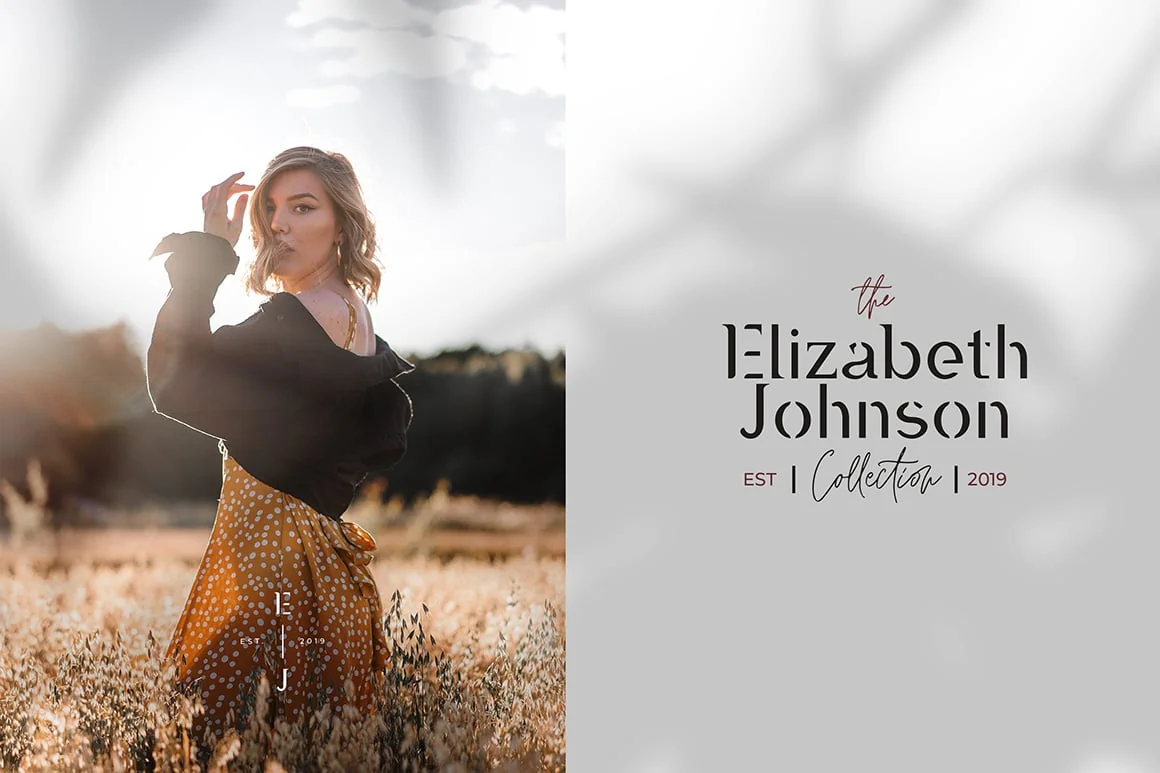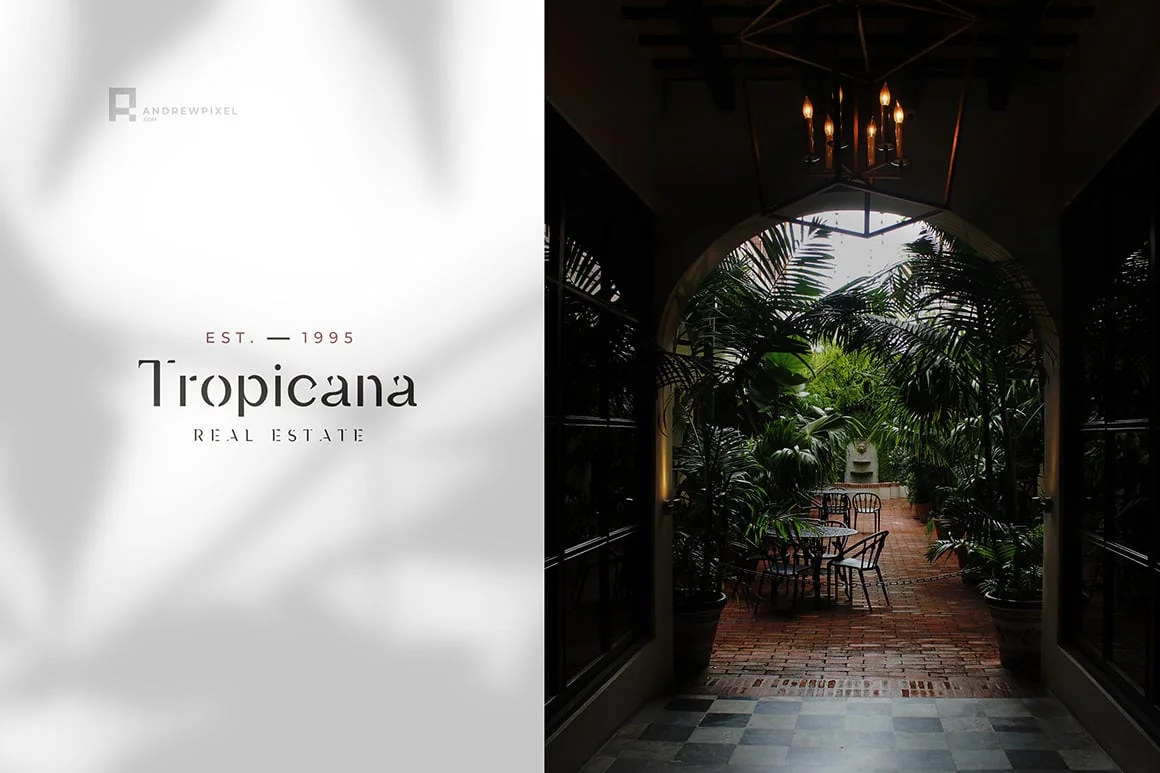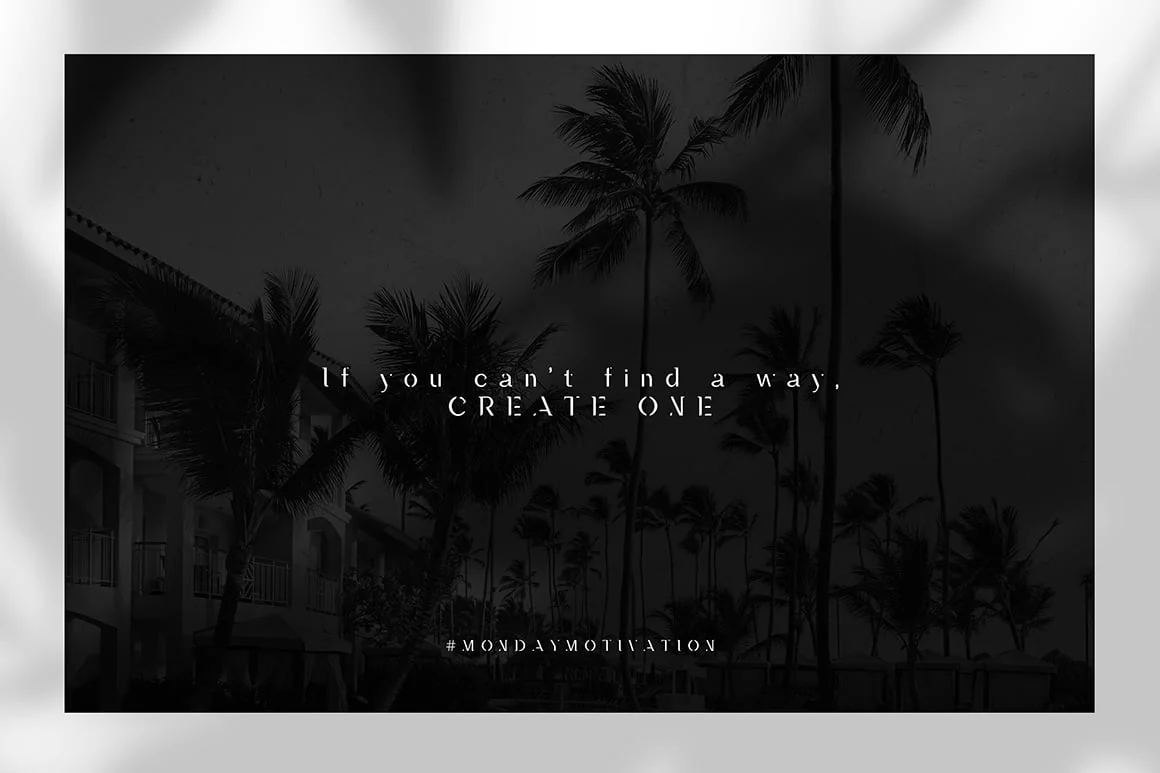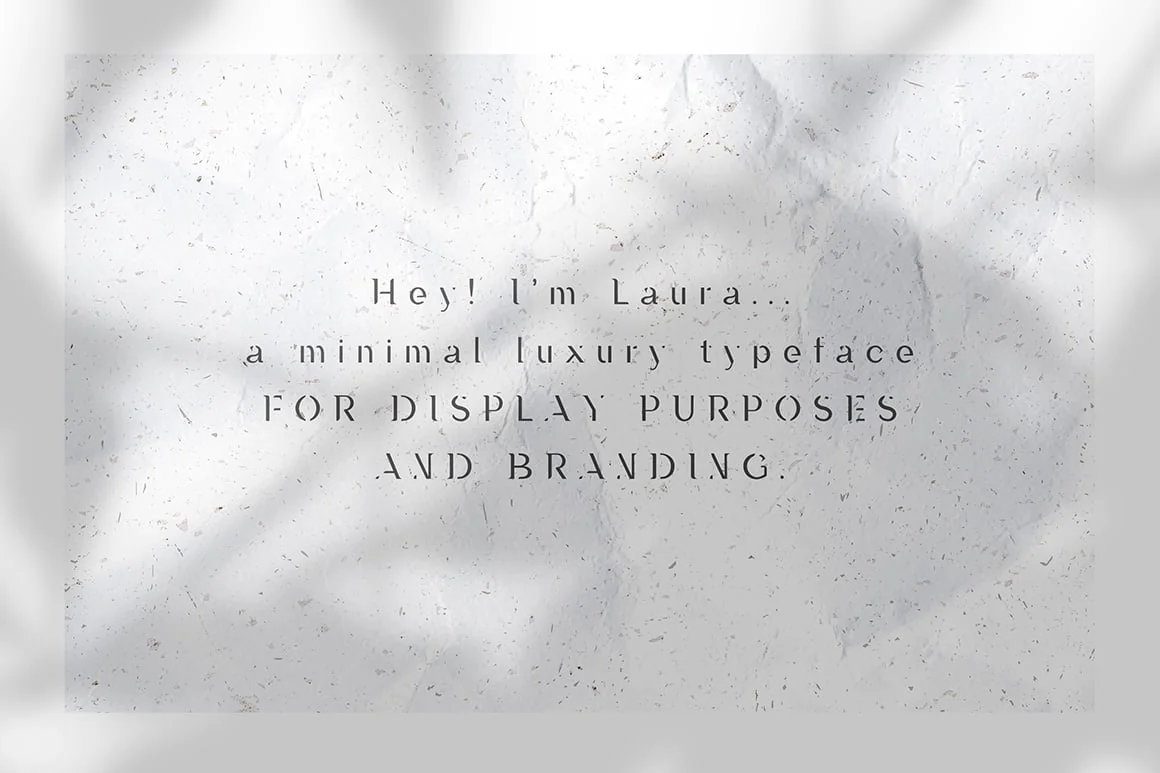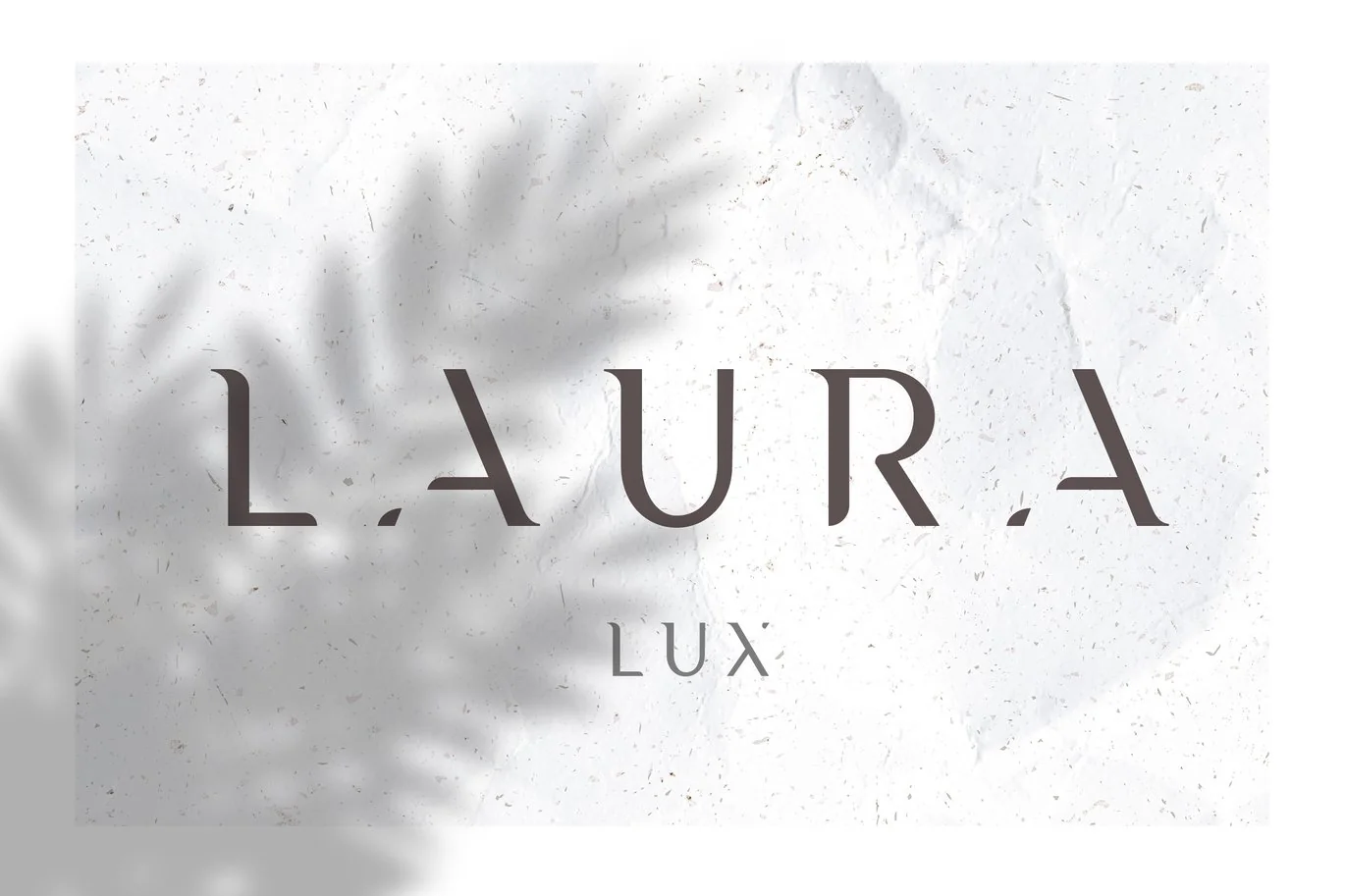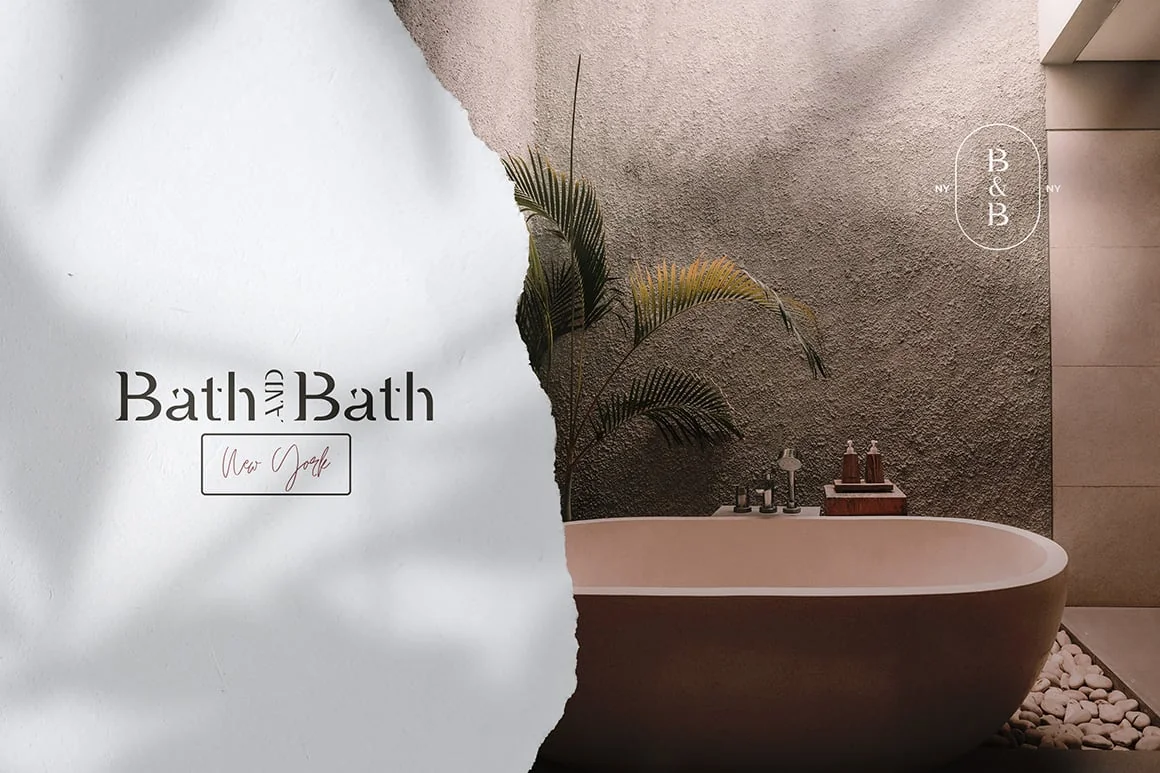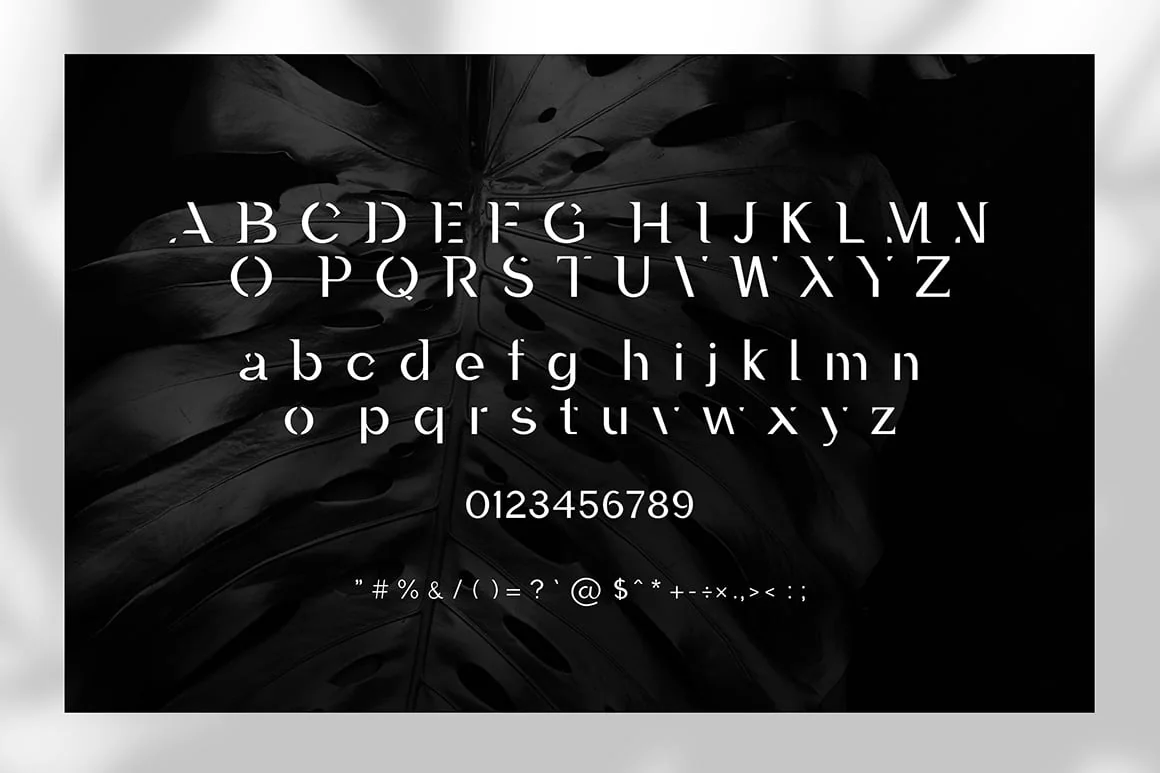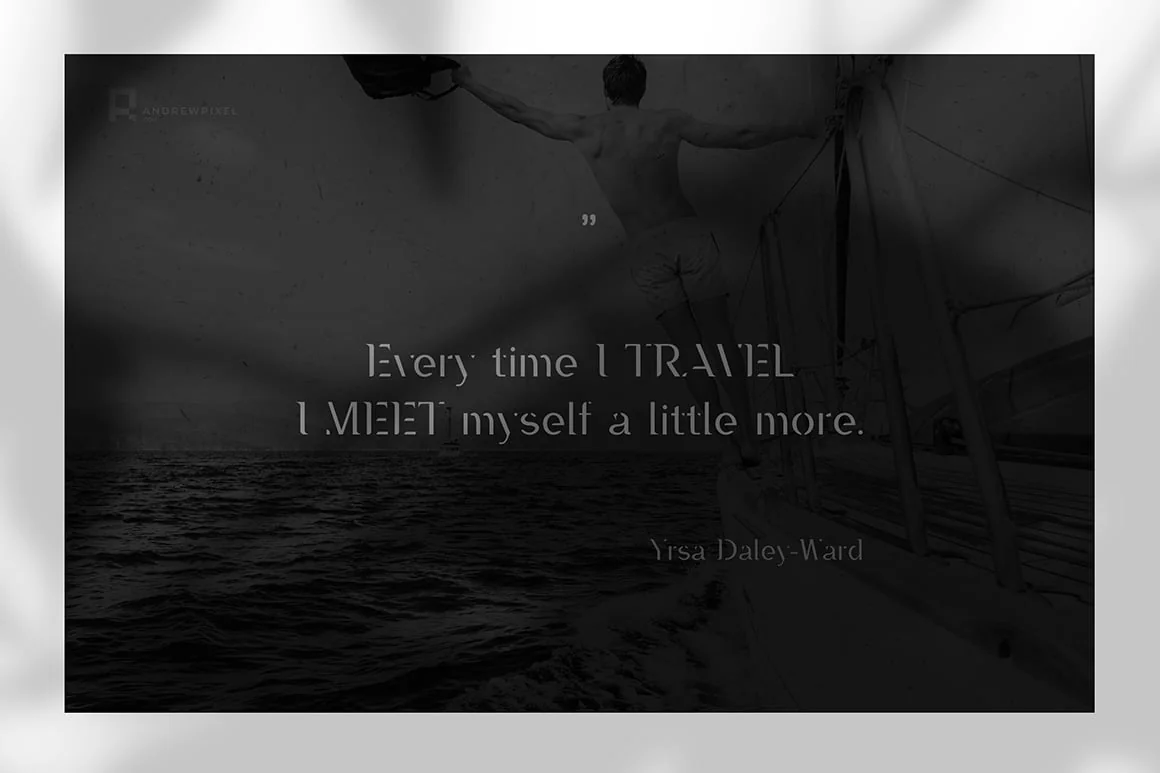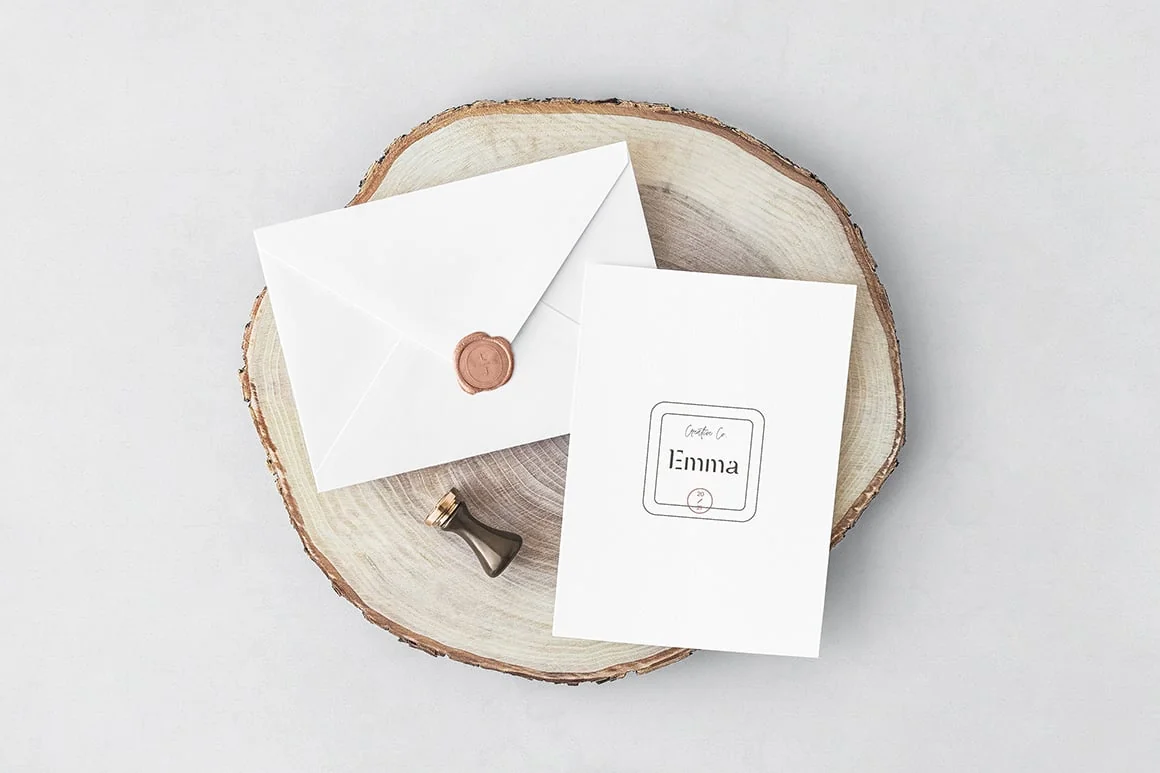
Laura – A Minimal Luxury Font
Introducing Laura – a luxury serif font for branding and display purposes
Laura is perfect for all kinds of elegant branding projects, modern logos, invitations and titles. It works best as a title or decorative font as it conveys modern minimalism.